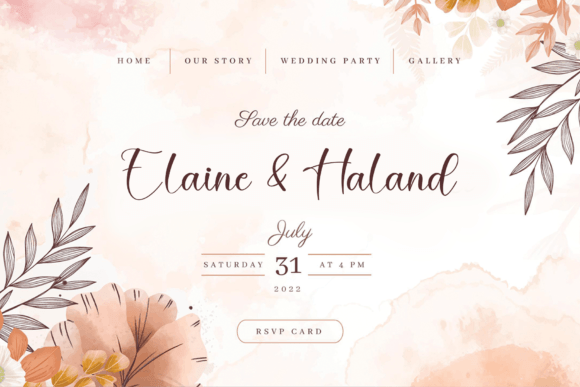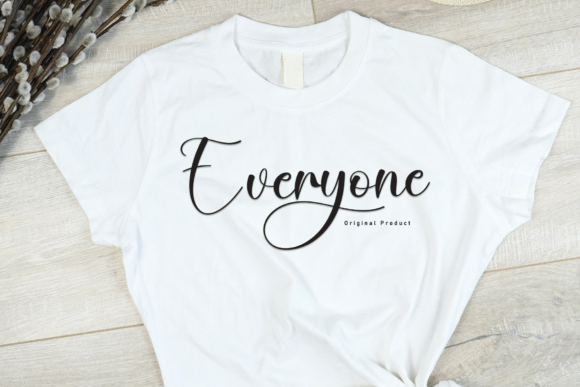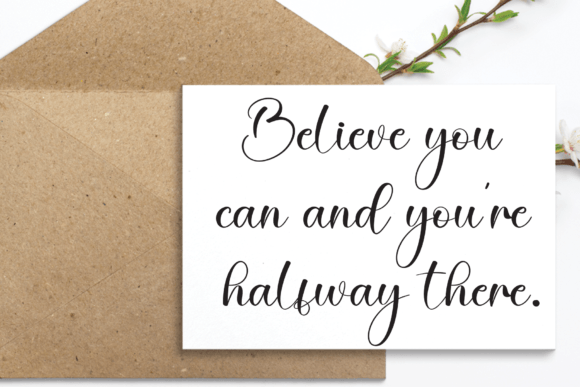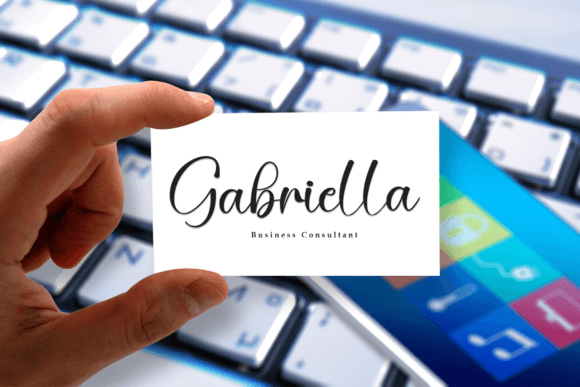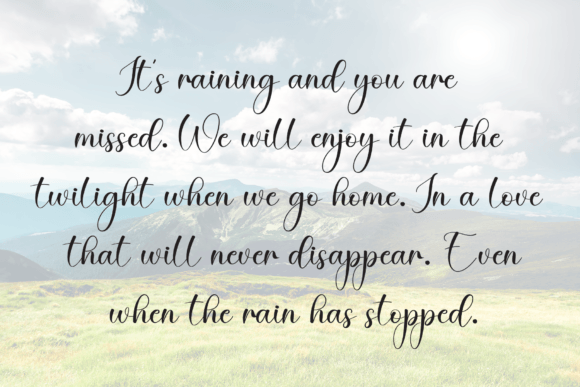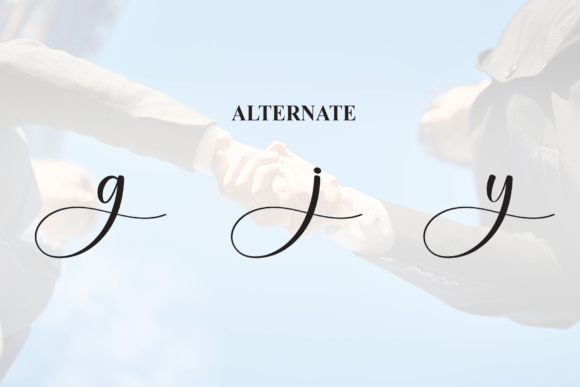
Bargain Font: Elevate Your Designs with Elegance and Style
Are you a designer or crafter looking for a font that can add a touch of elegance and sophistication to your projects? Look no further than the Bargain Font. This stylish and incredibly elegant script font is perfect for a wide range of designs, from wedding invitations and thank you cards to quotes, greeting cards, logos, business cards, and more.
The Characteristics of Bargain Font
The Bargain Font is a beautifully crafted script font that boasts a range of characteristics that make it perfect for designs that require a handwritten touch. Some of its key features include:
- Elegant and Refined: The Bargain Font has a sleek and refined appearance that makes it perfect for designs that require a touch of sophistication.
- Handwritten Touch: The font has a beautiful handwritten quality that adds a personal touch to any design.
- Versatile: The Bargain Font is incredibly versatile and can be used for a wide range of designs, from formal wedding invitations to more casual greeting cards.
- Highly Readable: Despite its elegant appearance, the Bargain Font is highly readable, making it perfect for designs that require a clear and concise message.
Uses for Bargain Font
The Bargain Font is a versatile font that can be used for a wide range of designs. Some of the most popular uses for this font include:
- Wedding Invitations: The Bargain Font is perfect for wedding invitations, adding a touch of elegance and sophistication to your wedding stationery.
- Thank You Cards: The font is also great for thank you cards, allowing you to express your gratitude in a stylish and elegant way.
- Quotes: The Bargain Font is perfect for quotes, adding a touch of elegance and sophistication to your inspirational and motivational messages.
- Greeting Cards: The font is also great for greeting cards, allowing you to create beautiful and stylish cards for any occasion.
- Logos: The Bargain Font can also be used for logos, adding a touch of elegance and sophistication to your brand identity.
- Business Cards: The font is also perfect for business cards, allowing you to create a stylish and professional business card that stands out from the crowd.
Why Choose Bargain Font?
So why choose the Bargain Font for your designs? Here are just a few reasons why this font stands out from the crowd:
- Unique and Exclusive: The Bargain Font is a unique and exclusive font that will add a touch of elegance and sophistication to your designs.
- High-Quality: The font is of high quality, with a range of features that make it perfect for professional designs.
- Easy to Use: The Bargain Font is easy to use, with a simple and intuitive design that makes it easy to incorporate into your projects.
Tips for Using Bargain Font
Here are a few tips for using the Bargain Font in your designs:
- Use it Sparingly: The Bargain Font is a elegant and sophisticated font, so use it sparingly to add a touch of elegance to your designs.
- Pair it with Other Fonts: The font pairs well with other fonts, so don’t be afraid to experiment with different font combinations.
- Experiment with Different Sizes: The Bargain Font looks great in a range of sizes, so experiment with different sizes to find the one that works best for your design.
- Use it for Headings: The font is perfect for headings, so use it to add a touch of elegance and sophistication to your design.
In conclusion, the Bargain Font is a stylish and incredibly elegant script font that is perfect for designers and crafters looking to add a touch of elegance and sophistication to their projects. With its range of characteristics, uses, and benefits, this font is a great option for anyone looking to create beautiful and stylish designs. So why not give it a try and see the difference it can make to your designs?